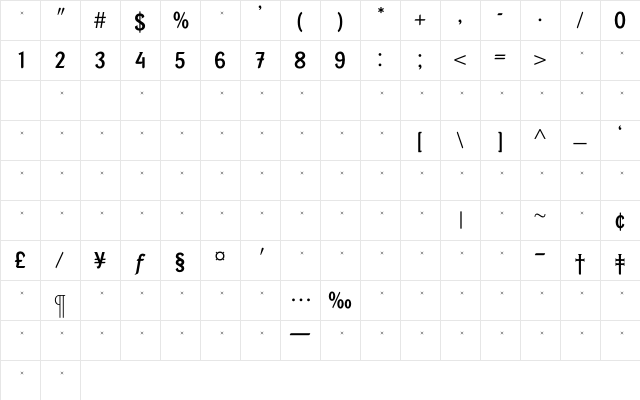
PortobelloLightTab Regular
Design Context for PortobelloLightTab
PortobelloLightTab is a composed and adaptable typeface that performs quietly and consistently across a wide range of design contexts. Its slender proportions lend an understated elegance to any composition.